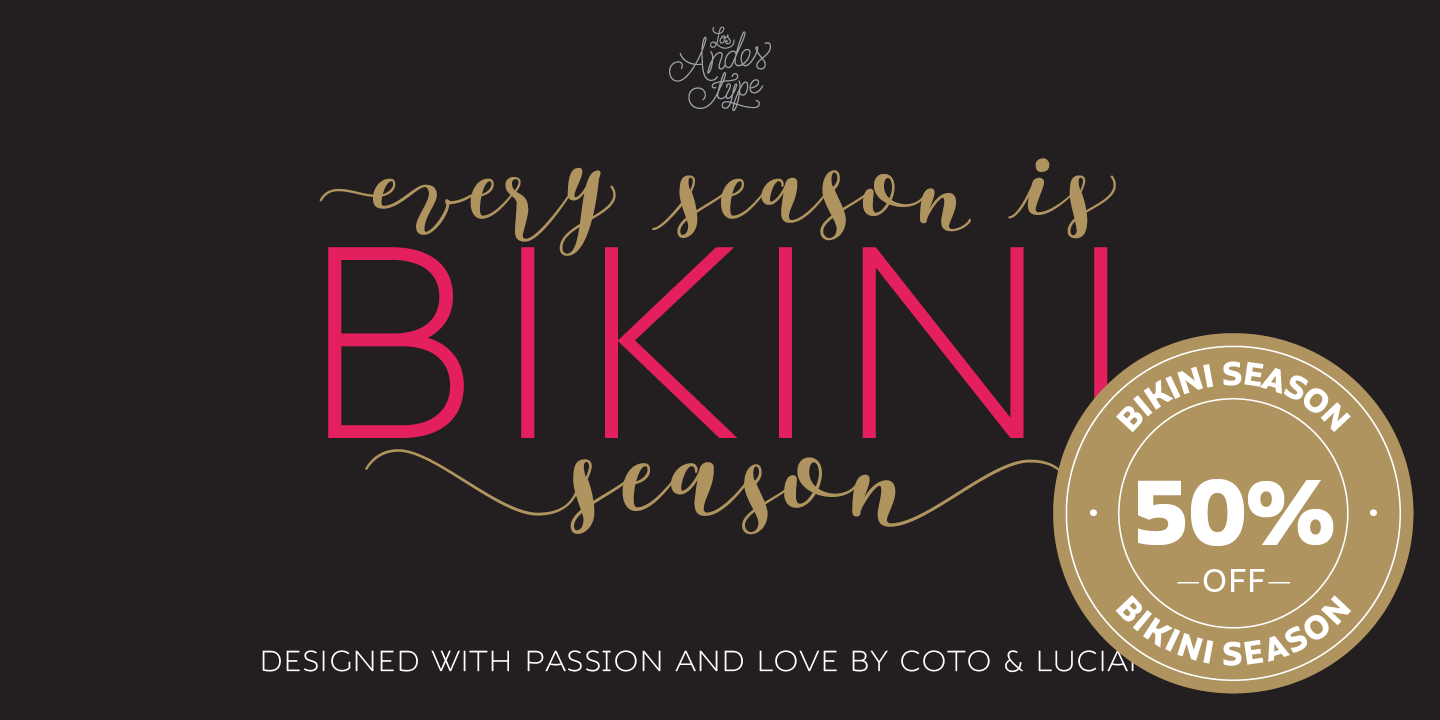
Bikini Season Family (2 fonts)
From Los Andes Type
Bikini includes a sans version, based on the proportion and structure of Roman capitals, but with a contemporary flavor and a clean style that give the typeface a chic touch. The other version of this font duo is a modern calligraphy script of handmade style. The mix is just perfect: opposites attract creating a very interesting counterpoint. Can you guess who is the designer behind each style?
This font duo is intended to be used for posters, labelling or branding. The sans and script styles add visual hierarchy when composing text. Feel the fresh free spirit of its OpenType features and ornaments!